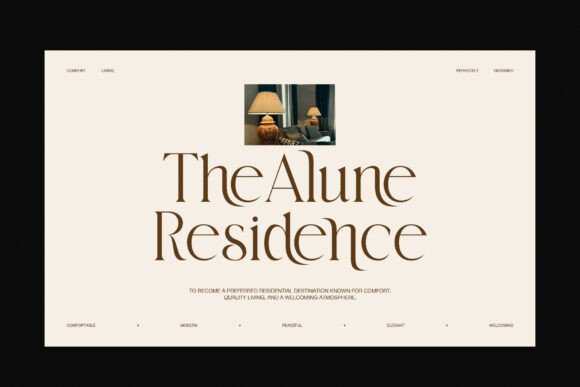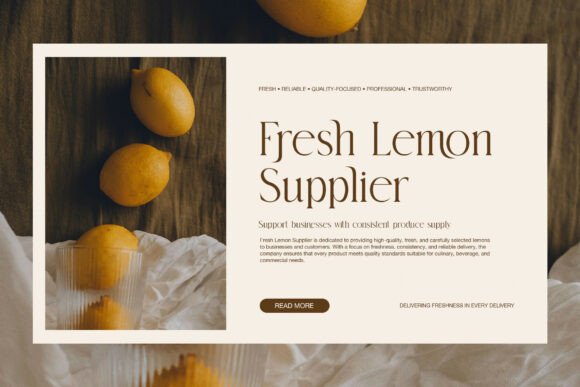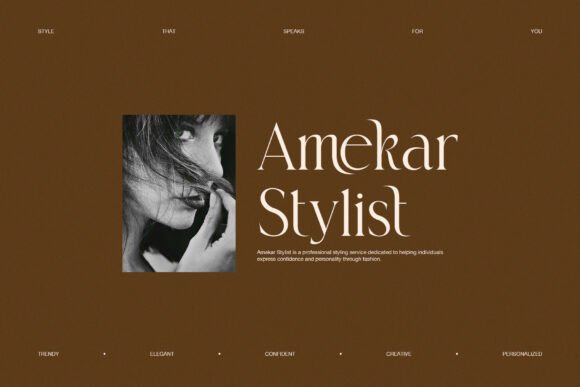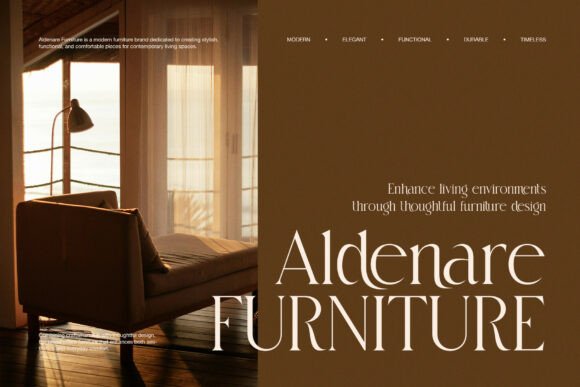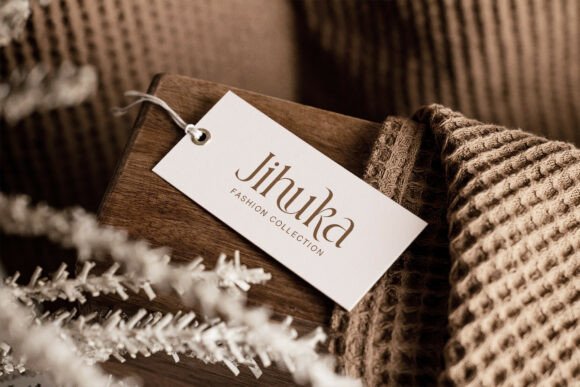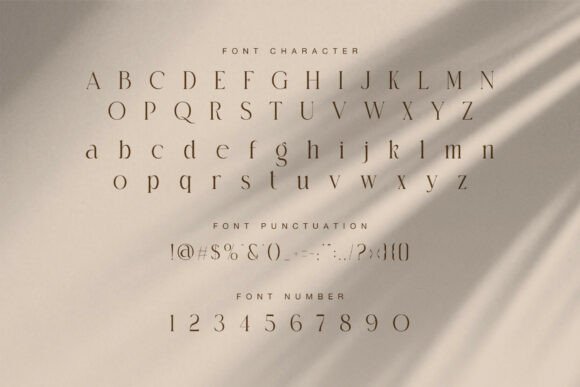
Introduction to Rokina Font
Have you ever stared at a blank canvas, waiting for inspiration to strike, only to find yourself drawn to the elegance of a beautifully crafted font? That’s exactly what happens when you’re about to start a new creative project – the hunt for the perfect design resource begins. Whether you’re designing a luxury beauty brand, a modern wedding suite, or a chic boutique packaging, the right font can make all the difference.
Enter Rokina Font, a stunning new serif font that masterfully blends traditional elegance with contemporary flair. This high-quality typeface is not just a pretty face – it’s a valuable asset for designers looking to elevate their visual identity and create a lasting impression. With its unique, high-contrast terminals and elongated, artistic descenders, Rokina Font is the perfect choice for designers who demand high-end editorial style and effortless aesthetic beauty.
But what really sets Rokina Font apart is its flexibility – from free download to transparent background, this font is designed to be adaptable to any creative project, giving designers the freedom to push the boundaries of their imagination.
Key Features of Rokina Font
- High-quality design resource suitable for creative projects, with a transparent background for versatility.
- Font size: 12,000+ glyphs, covering a wide range of languages and characters.
- Unique characteristic: Rokina Font features a unique blend of modern and vintage elements, making it perfect for projects requiring a distinctive look.
- Font weight and style options: Multiple weights and styles available to suit various design needs.
Honest Review: Rokina Font
As a designer, I’m always on the lookout for high-quality design resources to elevate my creative projects. The Rokina Font is one such resource that caught my attention, and I’m excited to share my honest review with you.
- ✨ High-quality design: The Rokina Font has a beautiful, elegant design that’s perfect for creating a sophisticated look in your projects.
- ⚠️ Limited font weights: While the Rokina Font has a nice range of font styles, I found the available font weights to be a bit limited.
Overall, I’m impressed with the Rokina Font’s design and versatility, making it a great addition to any design resource library. While it may not offer everything, it’s a solid choice for those looking for a high-quality font for their creative projects.
Common Use Cases for Rokina Font
The Rokina Font is commonly used in graphic design, digital art, and creative projects. It can be used to create eye-catching titles, headings, and body text. The font’s high-quality design makes it an ideal choice for designers who want to create visually appealing and professional-looking designs.